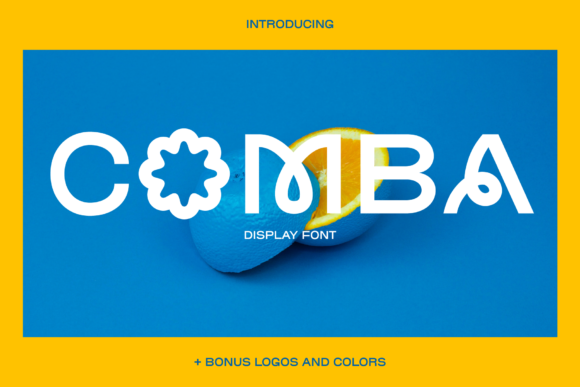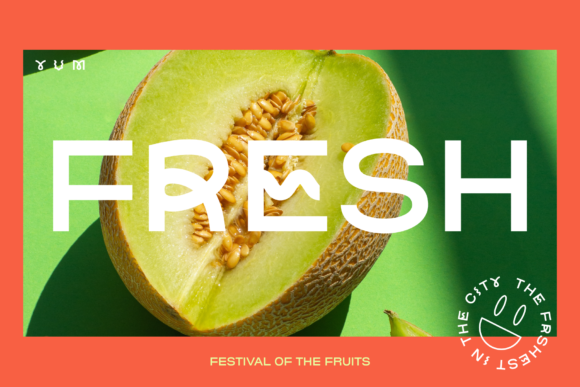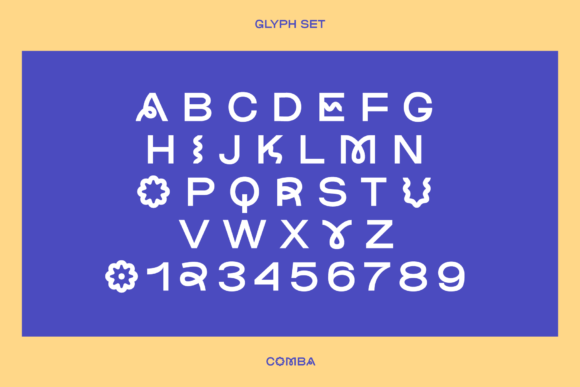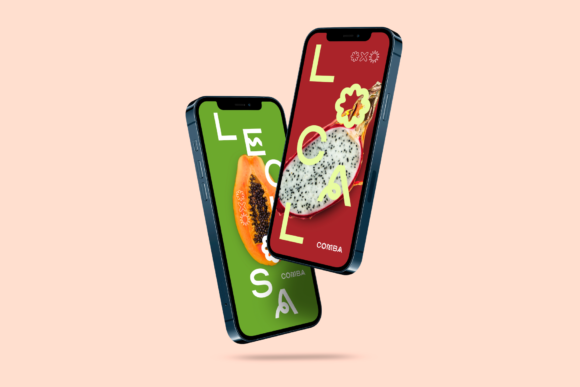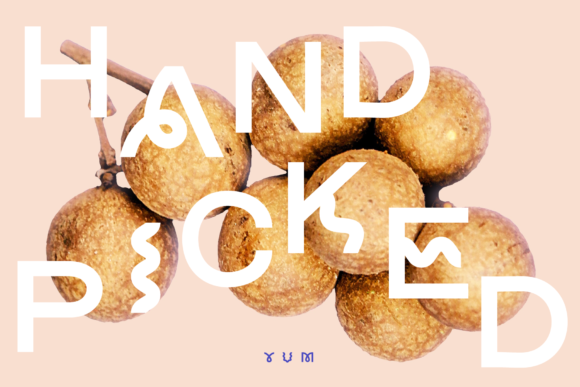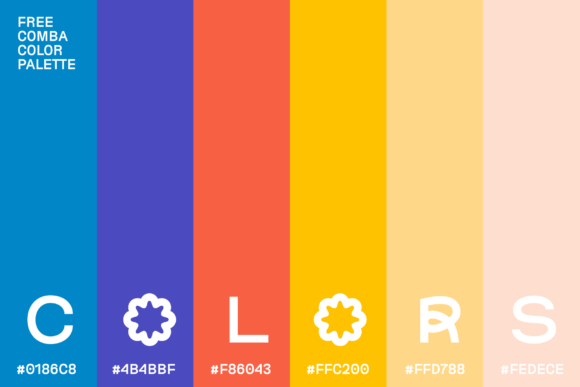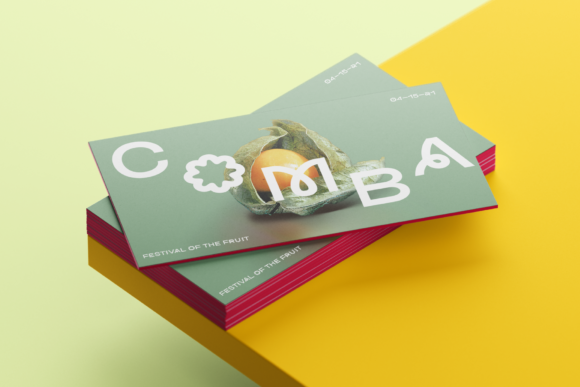
Unleash Your Creativity with the Perfect Display Font
Do you ever find yourself staring at a blank canvas, trying to spark a new idea? The creative process can be a thrilling dance of inspiration and experimentation. One of the key elements that can elevate your work is the right font. Imagine having a font that embodies the carefree spirit of a sunny day – a font that makes you smile and adds a touch of whimsy to your designs.
Meet the Comba Font, a cool, casual, and fun display font designed to bring a smile to your face. Whether you’re crafting, digital designing, creating presentations, or making greeting cards, Comba Font is the perfect companion for your creative journey. Its versatility and playfulness make it a valuable addition to any designer’s toolkit.
Comba Font Key Features
- Font Family: Comba is a sans-serif font family.
- Font Size: Supports font sizes ranging from 8pt to 72pt.
- Resolution: Optimized for 72 dpi (dots per inch) and 96 dpi.
- Language Support: Supports over 100 languages, including Latin, Cyrillic, and Greek scripts.
- Unique Characteristics: Features a clean and modern design, with a focus on legibility and readability in digital and print media.
Comba Font Review
At first glance, Comba Font seems to be a promising font family, offering a range of weights and styles to suit various design needs. ✨ One of its strongest aspects is its clean and modern aesthetic, making it a great fit for contemporary designs. The font’s versatility and adaptability to different contexts are also notable strengths. ✨
- Open-type features and advanced font technology make it easy to customize and use.
- The font’s comprehensive weight range allows for a high degree of flexibility.
However, upon closer inspection, some limitations become apparent. ⚠️ One of the main issues is the font’s relatively limited language support, which may be a concern for designers working with non-Latin scripts. Additionally, the font’s glyph quality and consistency can be inconsistent across different weights and styles. ⚠️
Overall, Comba Font is a decent choice for designers looking for a clean and modern font. While it has its strengths, it also has some notable limitations. To get the most out of this font, designers should be aware of its potential drawbacks and consider these when making their selection.
Getting the Most Out of Comba Font
To get the most out of Comba Font, use it for:
1. Headings and titles to create a bold and eye-catching look.
2. Body text to add a touch of elegance and sophistication.
3. Logos and branding to create a unique and memorable identity.